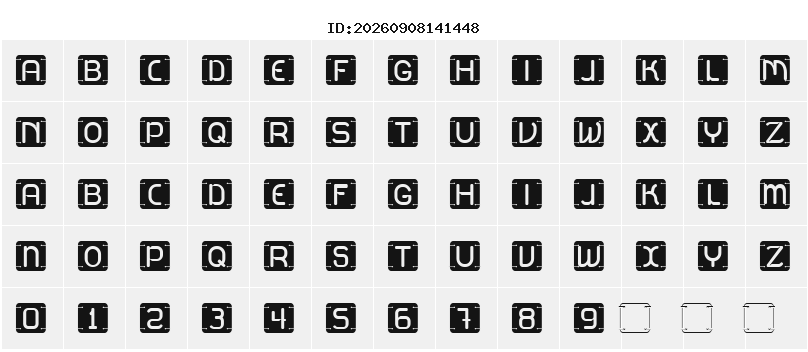
U2 Metalona* Preview
• Font Name: U2 Metalona*
• Designer: deFharo
• Description: Esta fuente de fantasía esta creada por mi a partir de la versión Unicase de mi tipografíia Sabática. Puedes descargar gratis desde mi web para uso personal. Licencia comercial disponible.
U2 Metalona*.ttf is a modern, elegant sans-serif font designed for ultimate readability and visual harmony. Perfect for branding, headlines, web design, and print materials.